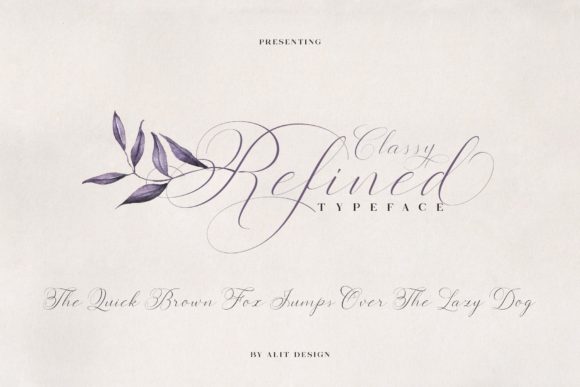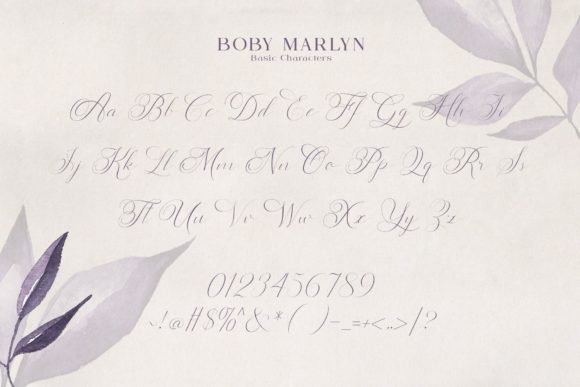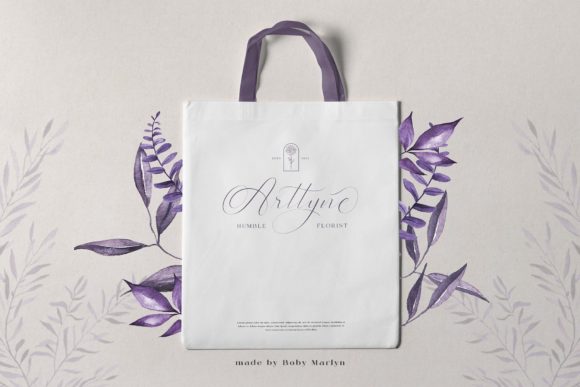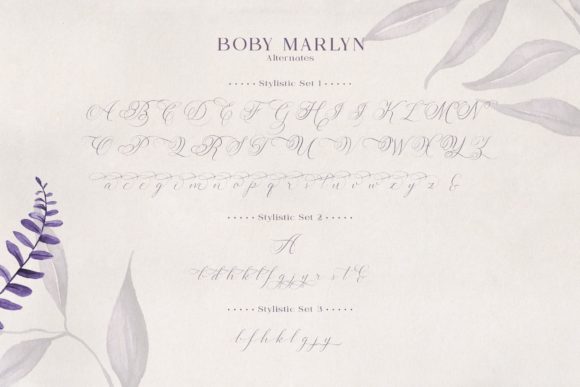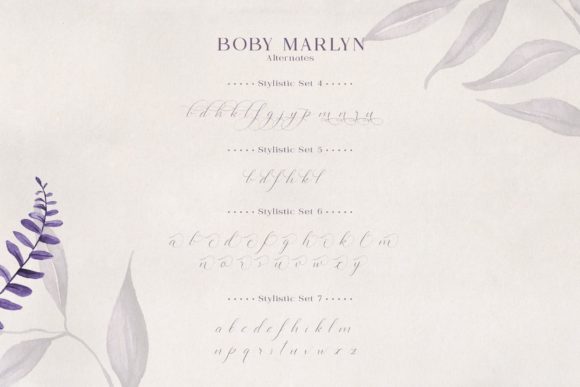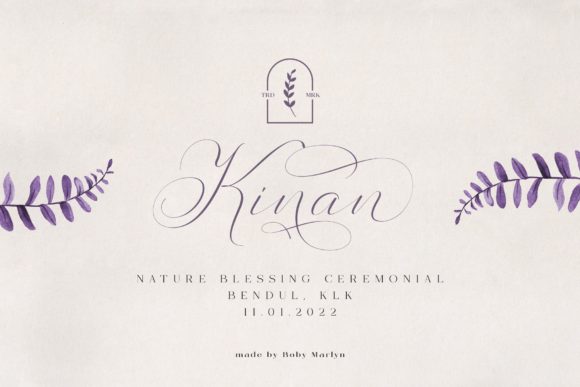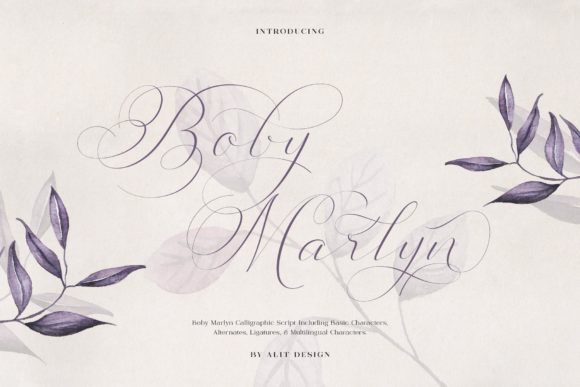
Boby Marlyn Font: Elevate Your Designs with a Delicate and Stylish Script
Are you a designer or crafter looking for a font that adds a touch of elegance and sophistication to your creations? Look no further than Boby Marlyn, a beautiful script font that is perfect for a variety of design projects. In this article, we’ll take a closer look at Boby Marlyn, its features, and how you can use it to take your designs to the next level.
What is Boby Marlyn Font?
Boby Marlyn is a delicate and stylish script font that is designed to add a handwritten touch to your designs. Its elegant and cursive strokes make it perfect for creating beautiful wedding invitations, thank you cards, quotes, greeting cards, logos, business cards, and more.
Key Features of Boby Marlyn Font
- Delicate and Stylish: Boby Marlyn has a unique and elegant style that is sure to make your designs stand out.
- Script Font: This font features beautiful cursive strokes that give it a handwritten feel.
- Versatile: Boby Marlyn can be used for a variety of design projects, from wedding invitations to business cards.
- Easy to Read: Despite its delicate nature, Boby Marlyn is easy to read, making it perfect for body text and quotes.
Uses of Boby Marlyn Font
Boby Marlyn is a versatile font that can be used for a wide range of design projects. Here are some ideas to get you started:
- Wedding Invitations: Add a touch of elegance to your wedding invitations with Boby Marlyn.
- Thank You Cards: Express your gratitude with beautiful and stylish thank you cards.
- Quotes: Create stunning quote graphics for social media or blogs.
- Greeting Cards: Design beautiful greeting cards for special occasions.
- Logos: Use Boby Marlyn to create a unique and elegant logo for your business.
- Business Cards: Add a touch of sophistication to your business cards.
Tips for Using Boby Marlyn Font
Here are some tips to help you get the most out of Boby Marlyn:
- Pair with Other Fonts: Pair Boby Marlyn with other fonts to create a unique and interesting contrast.
- Experiment with Colors: Try out different colors to see what works best with Boby Marlyn.
- Use for Headings and Titles: Use Boby Marlyn for headings and titles to add a touch of elegance.
- Keep it Simple: Don’t overcomplicate your design. Keep it simple and let Boby Marlyn shine.
Boby Marlyn is a beautiful and stylish script font that is perfect for designers and crafters looking to add a touch of elegance to their designs. With its delicate and cursive strokes, it’s perfect for a variety of design projects, from wedding invitations to business cards. By following the tips outlined in this article, you can get the most out of Boby Marlyn and create stunning designs that will leave a lasting impression.